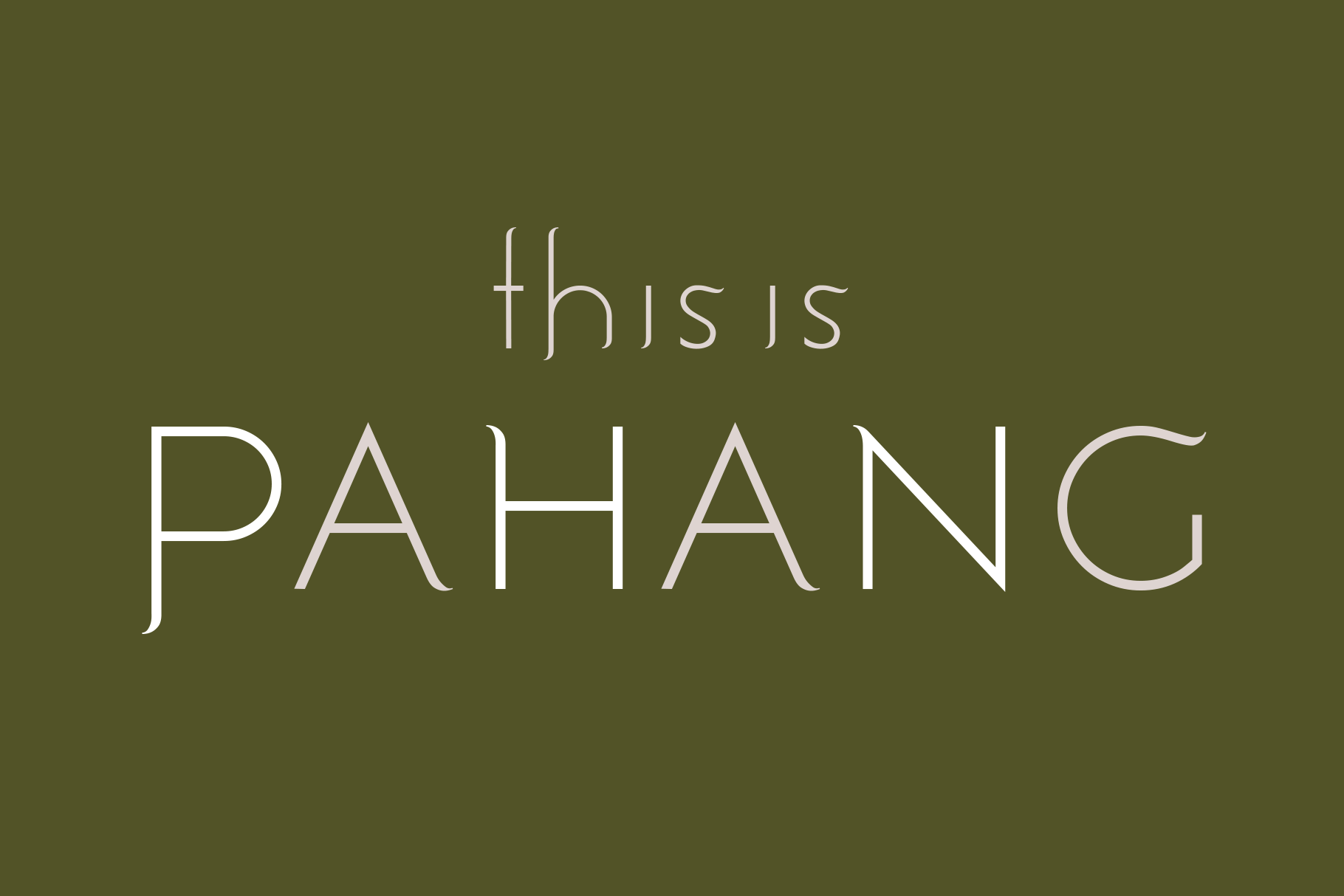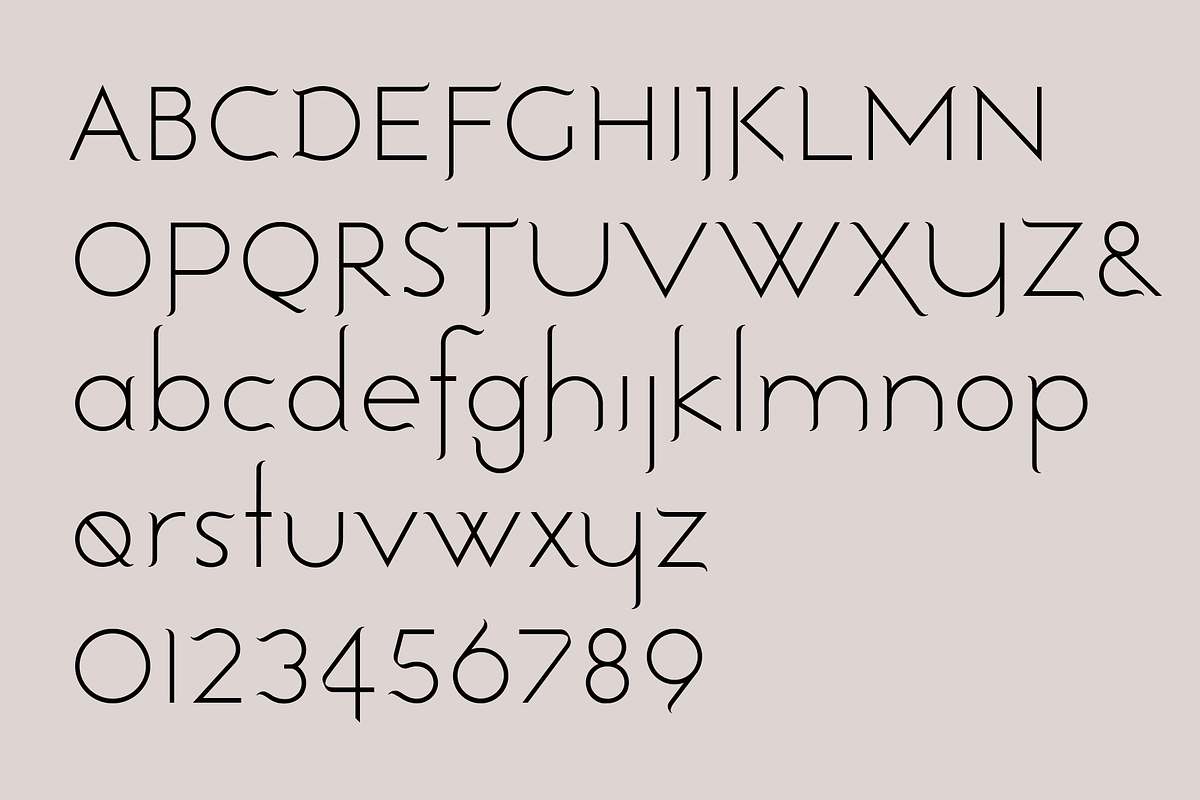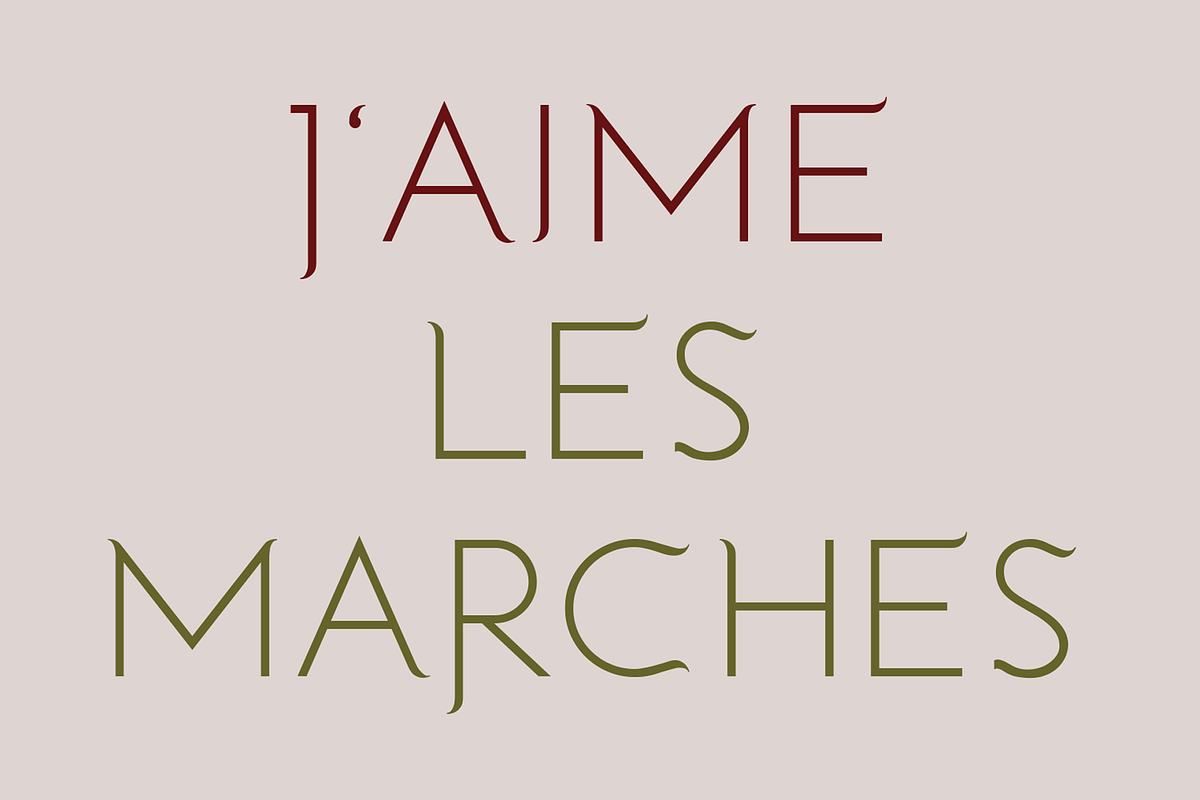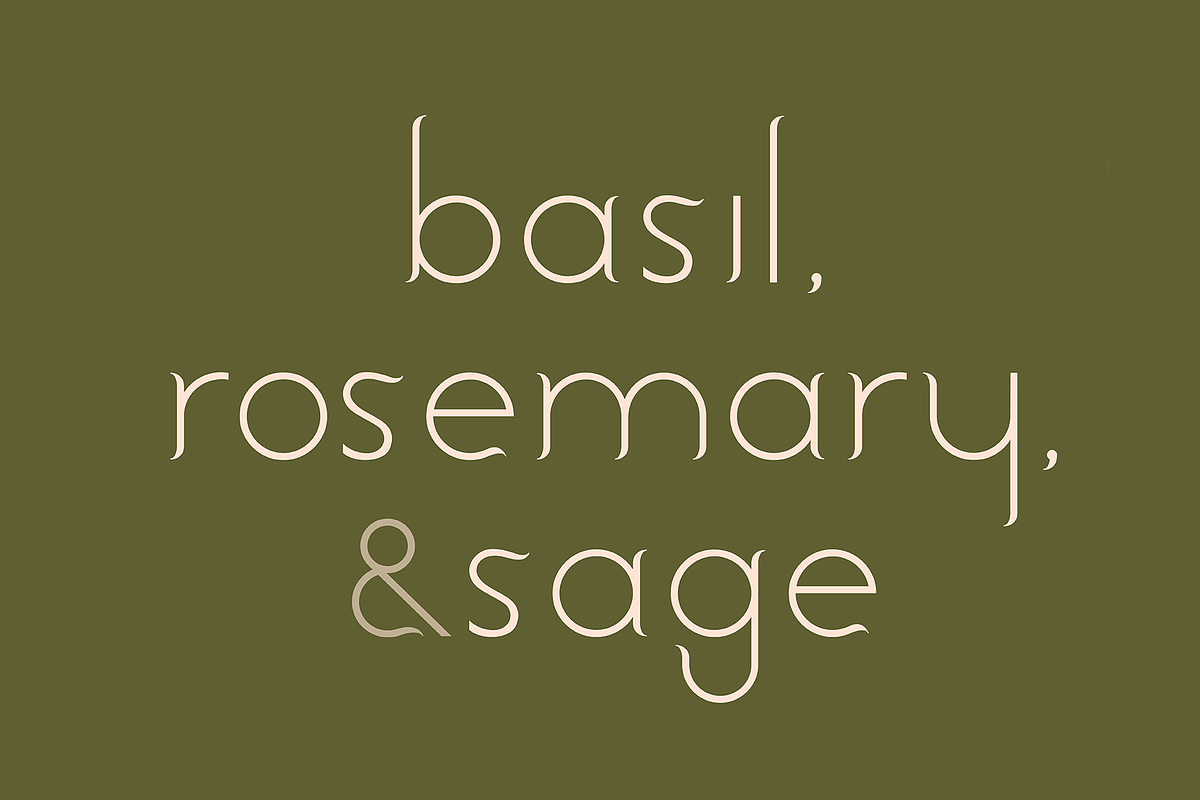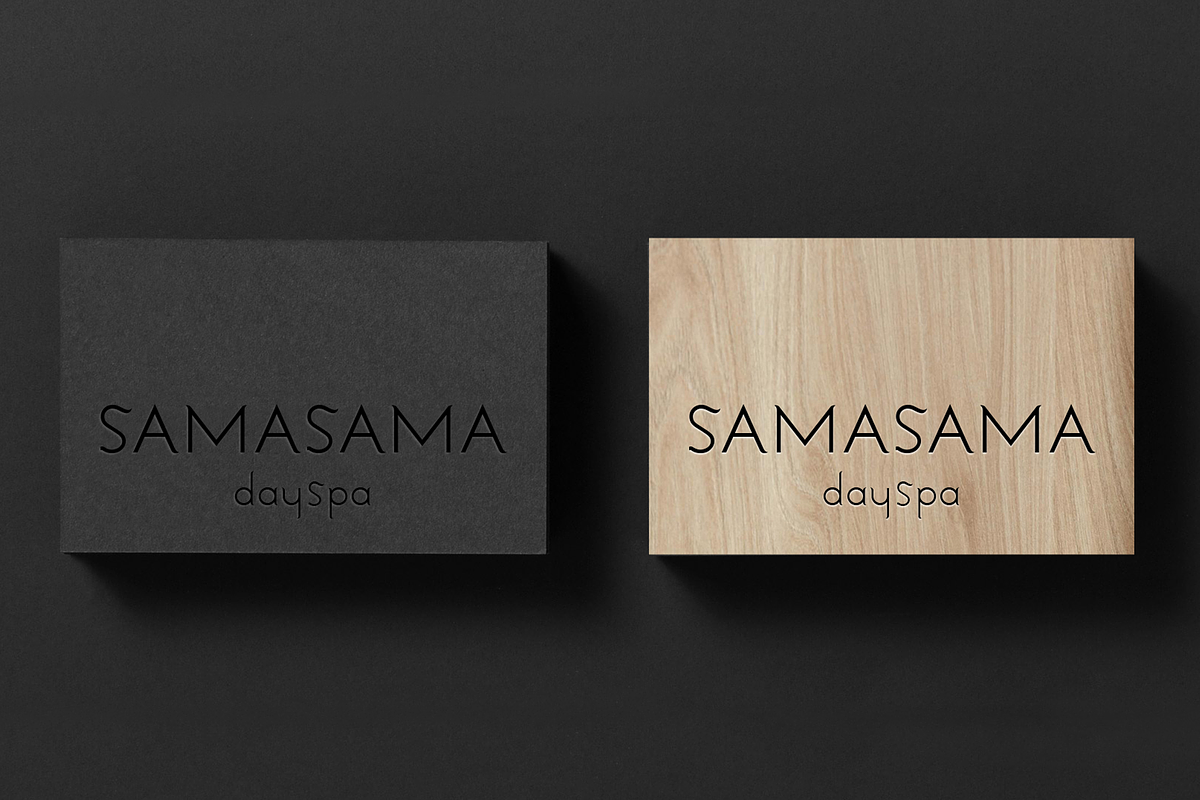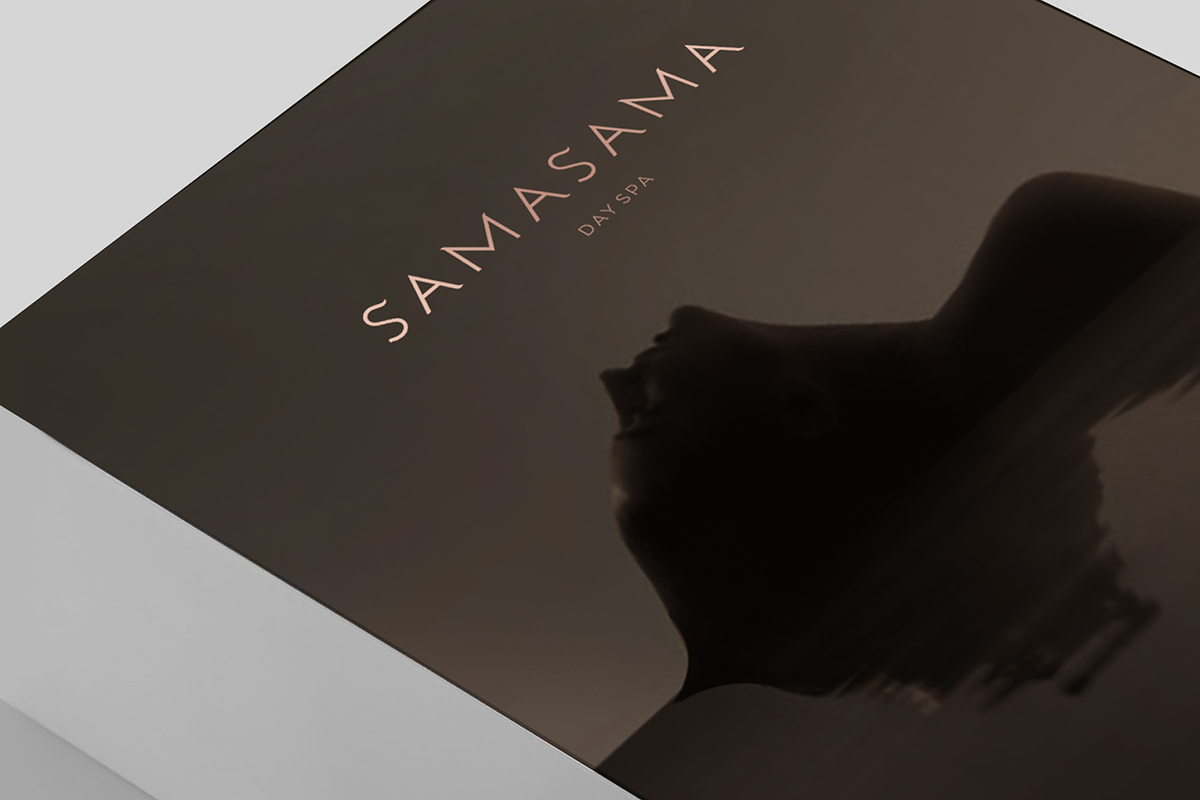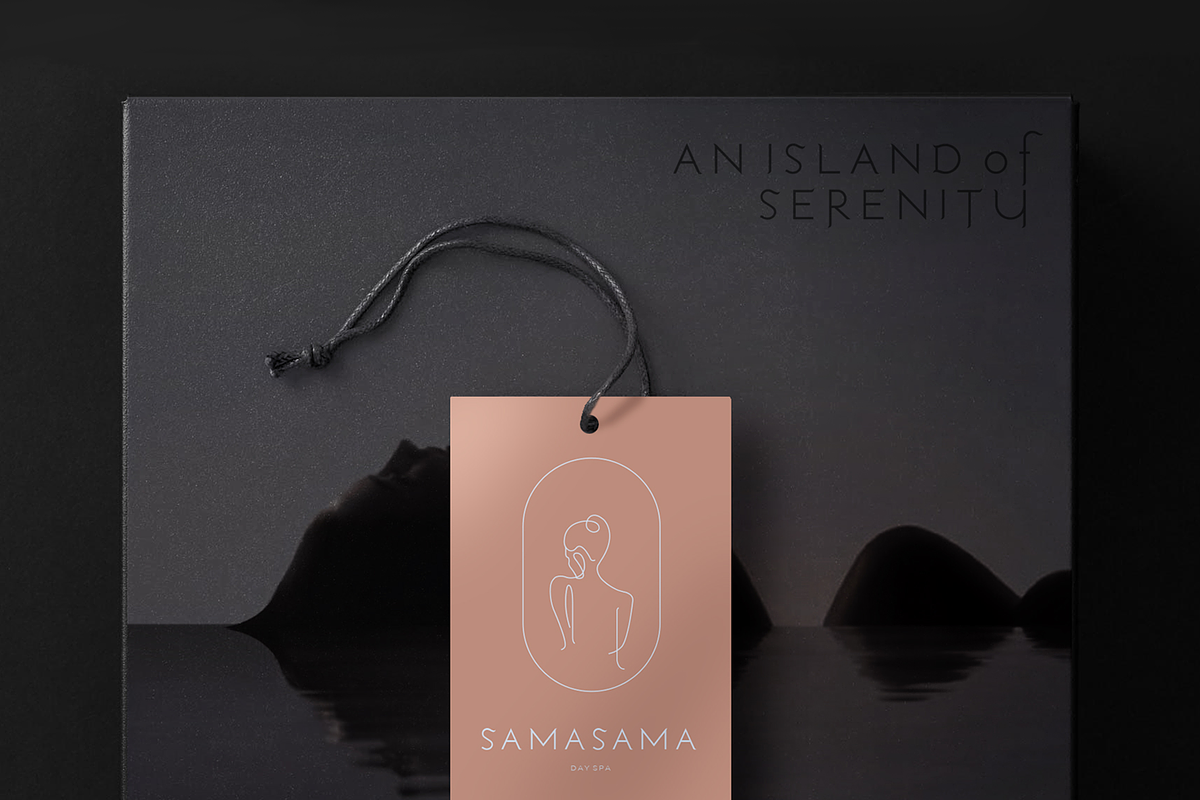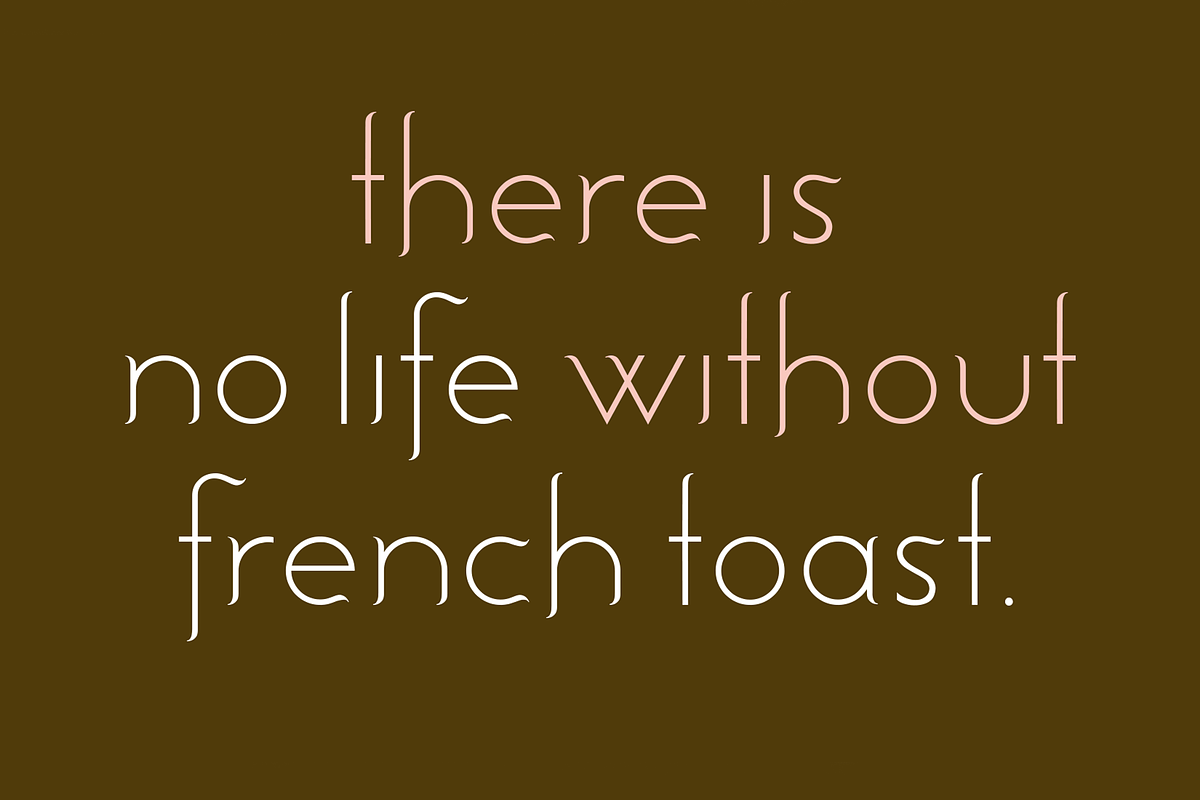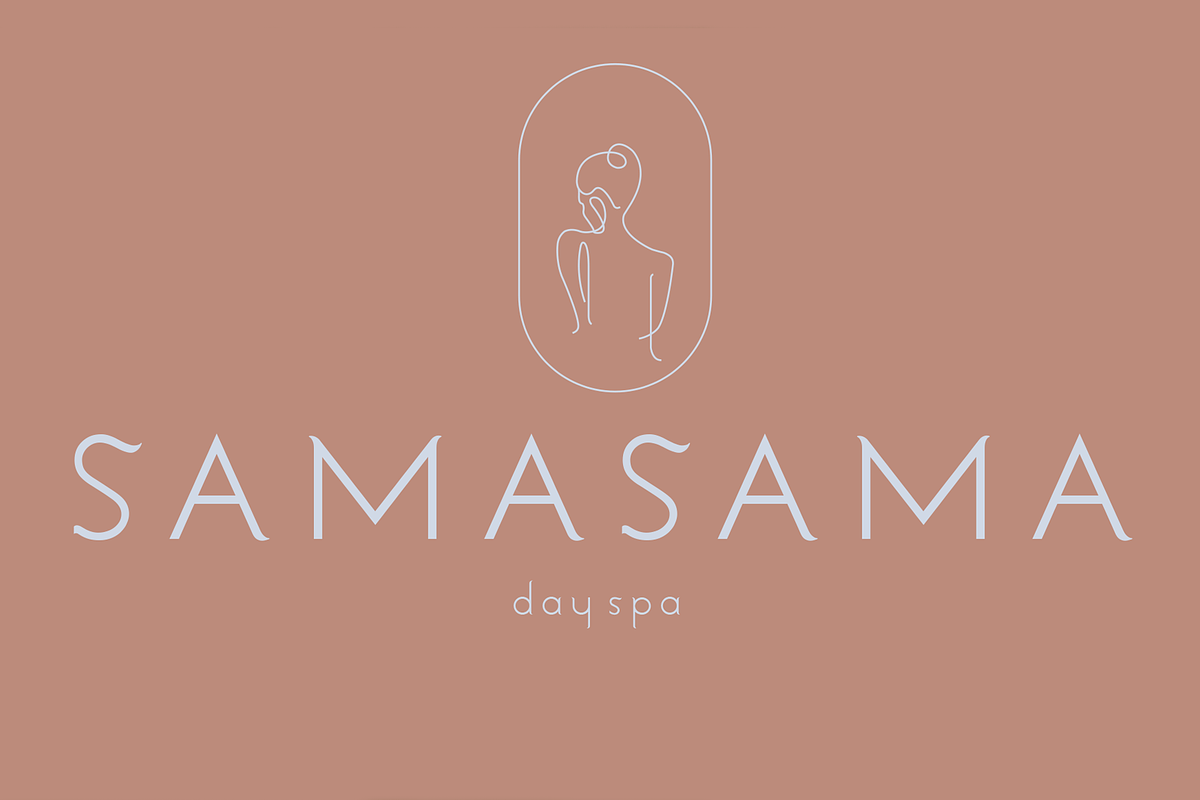
Pahang. Sleek serif/sans font
Pahang is a stylish new 'crossover font' for designers from LostandFoundry. This beautiful typeface has the look and feel of a modern sans serif font, but with classic, 'serif-like' touches, and was inspired by the enormous dangling vines found in the tropical jungle surrounding my wife's village house in Pahang, Malaysia.
Use Pahang when you need a font that is modern, yet chic and sophisticated, and need to bring a unique identity to your design projects. Pahang is a must addition to all professional designers' font libraries, as distinctive, modern, yet classic sans serif fonts are a rarity.
Set Pahang in your headlines, titles, logos, packaging designs, signage, & body-copy, not to mention used as a stunning, modern wedding design font. Or online, in websites, blogs, vlog titles, Youtube creator titles and social media post titles. Pahang comes in 2 weights and supports French and German and other European languages.